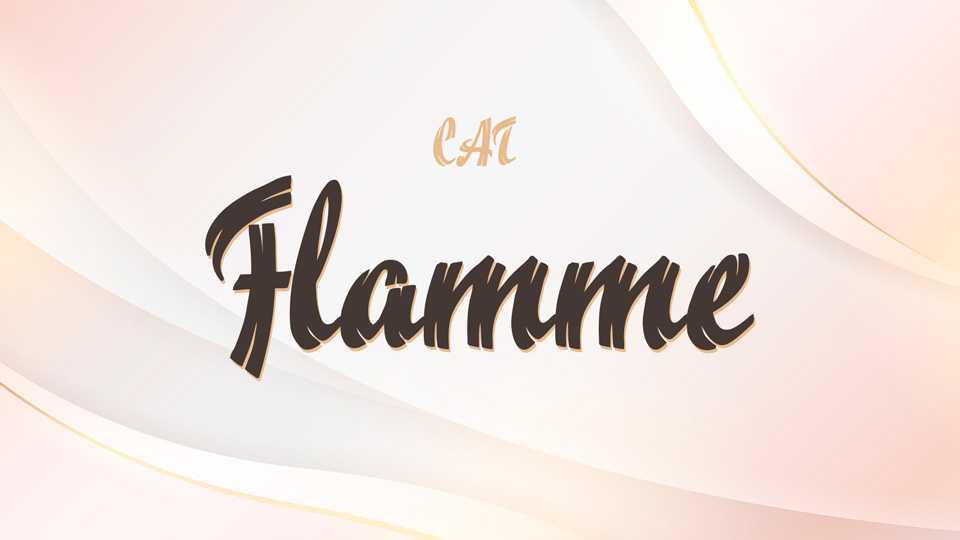
Download CAT Flamme font, a hand lettered script typeface with doubled strokes based on the advertisement type that was published in 1933 by Schelter & Gieseke in Leipzig.